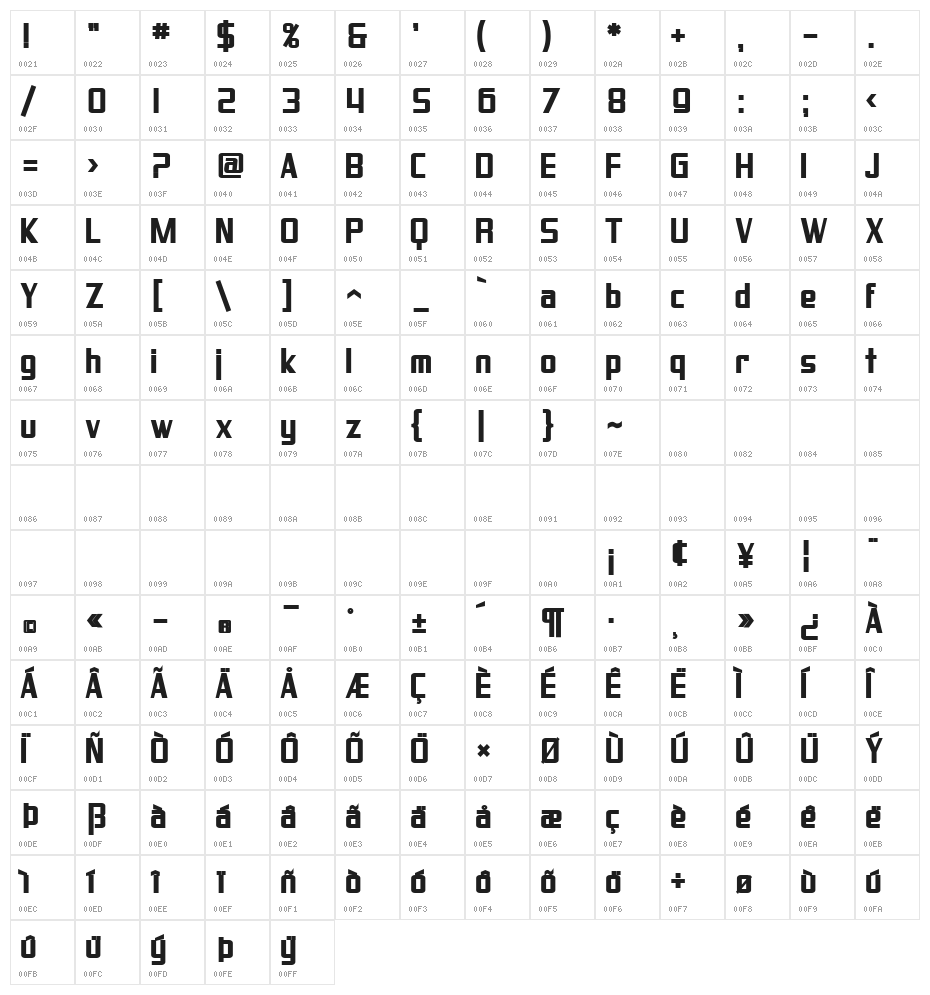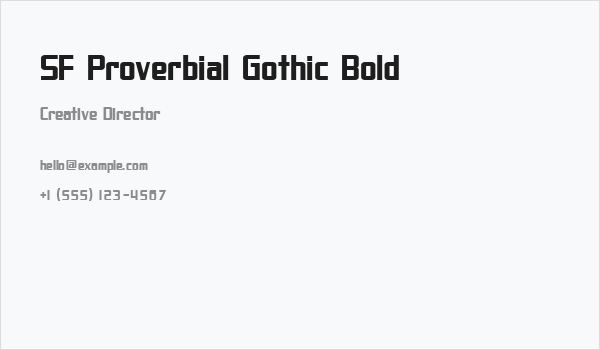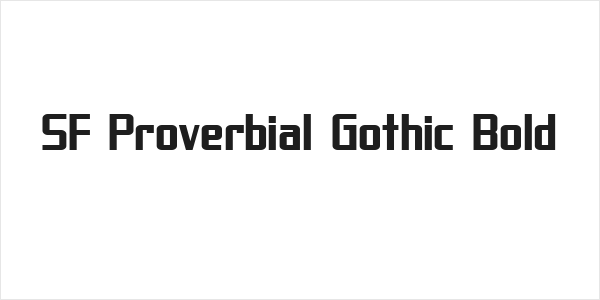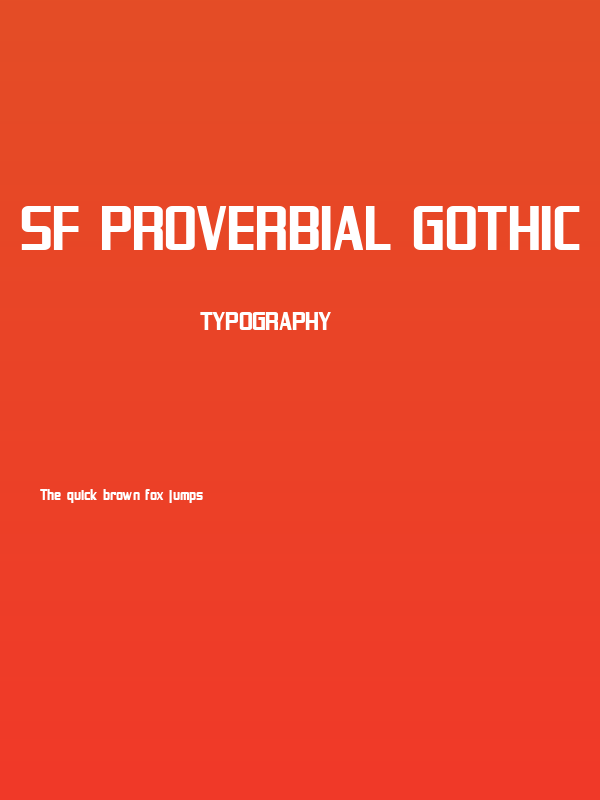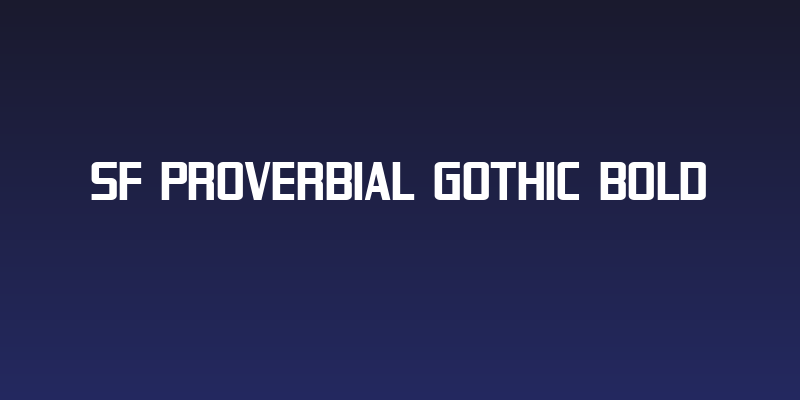
SF Proverbial Gothic Bold Font
SF Proverbial Gothic Bold Description
This font features a bold and assertive style with a strong geometric structure. The uppercase letters are tall and commanding, with a uniform width that gives a sense of stability and strength. The lowercase letters maintain the boldness, offering a consistent and cohesive look across both cases. Numbers are equally robust, ensuring clarity and impact. Special characters are designed with the same boldness, making them stand out effectively. The overall appearance is modern and slightly industrial, suitable for making a strong visual statement.
| Proposed Projects | Ideal for branding, headlines, posters, and any design requiring a strong visual impact. |